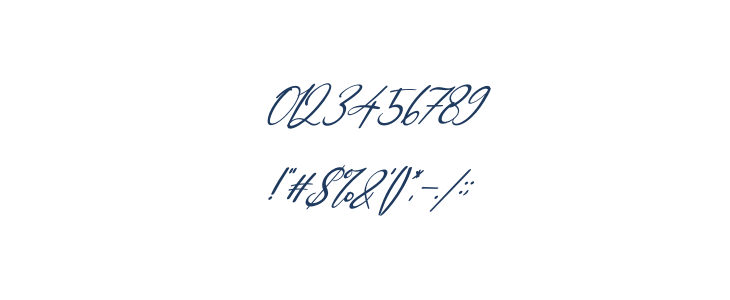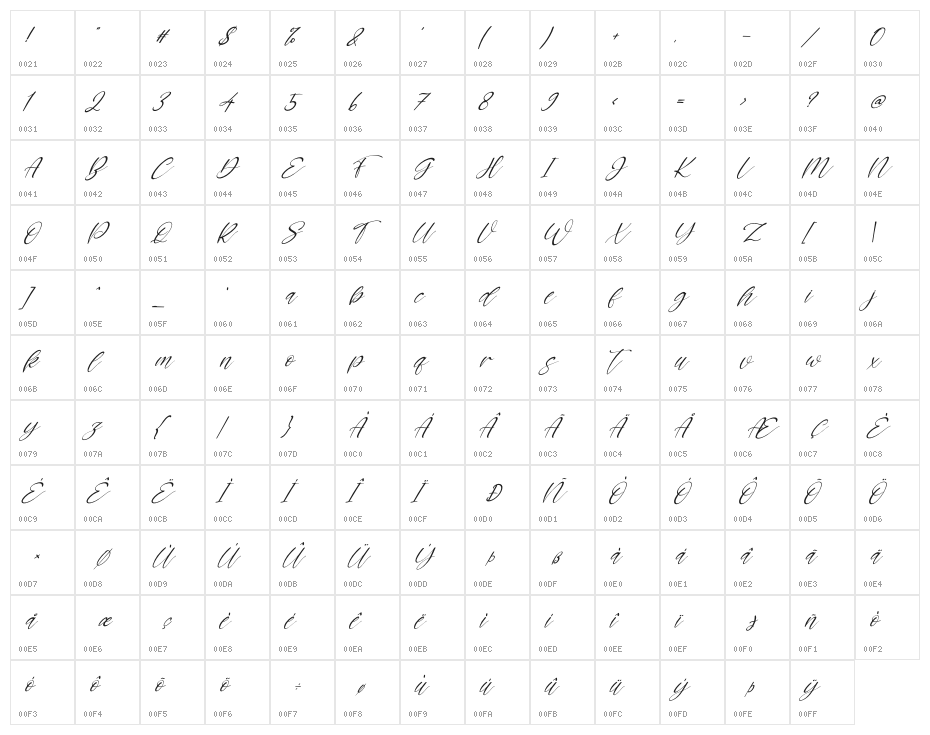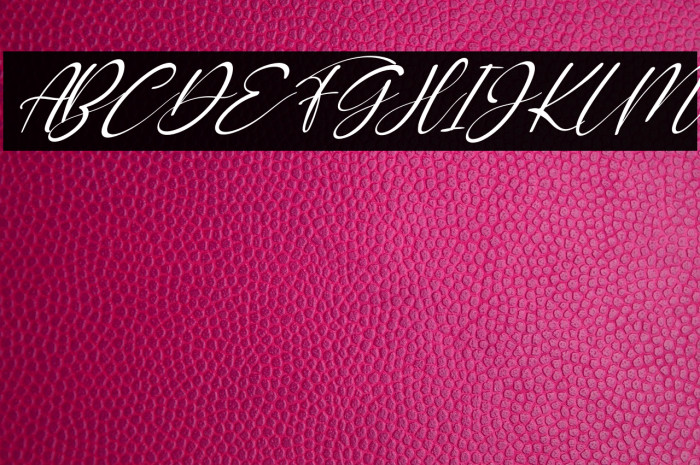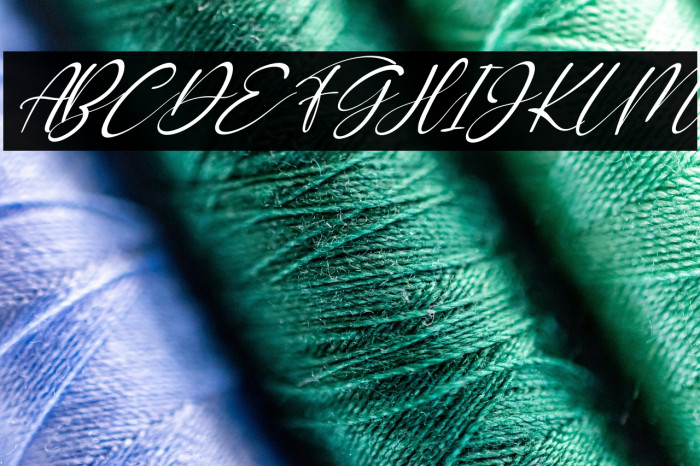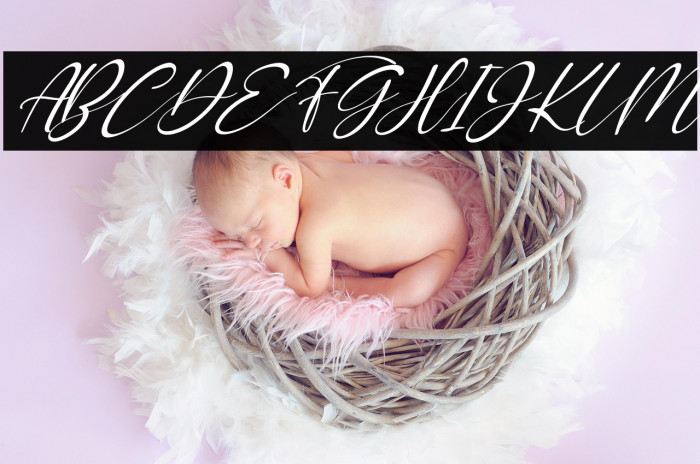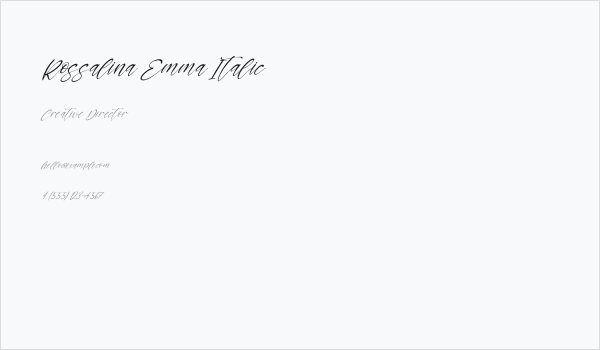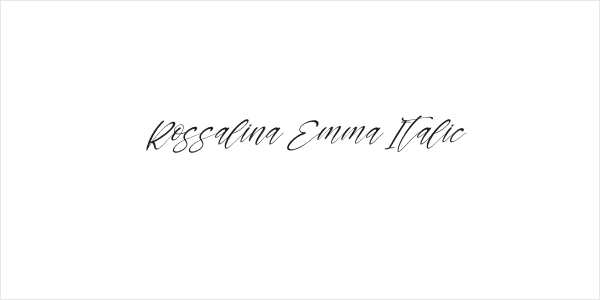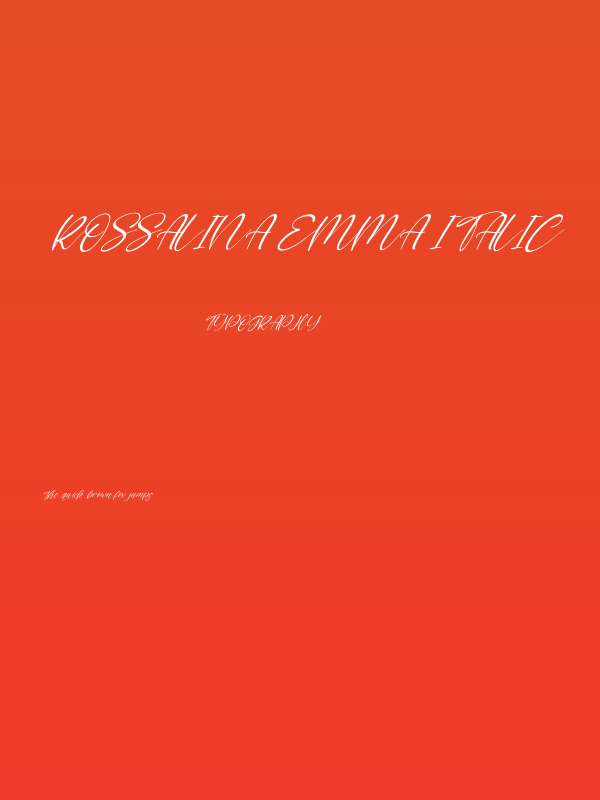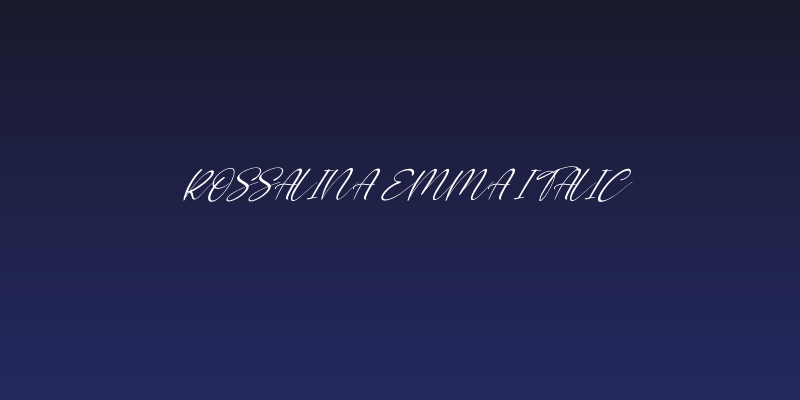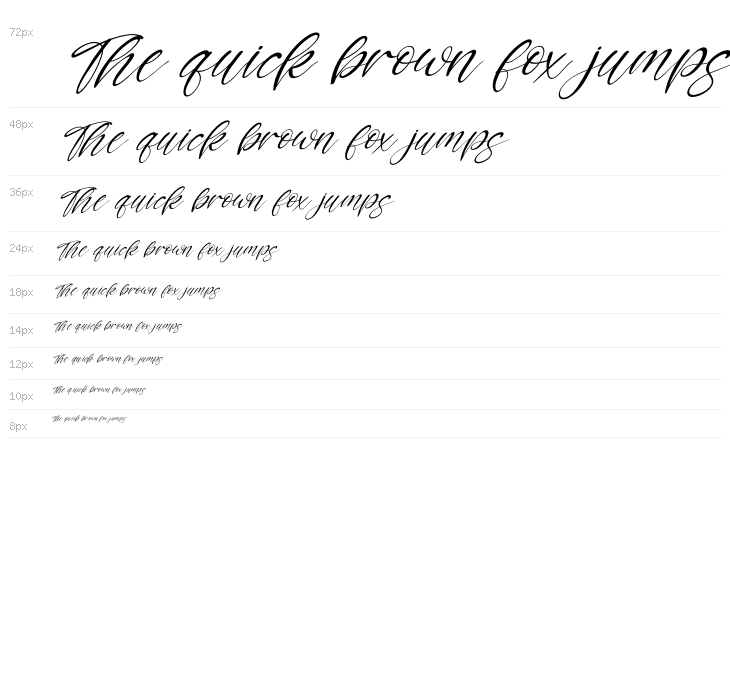
Rossalina Emma Italic Font
Rossalina Emma Italic Description
This elegant script font features a flowing, cursive style with a distinct italic slant, giving it a dynamic and sophisticated appearance. The characters are interconnected with smooth, sweeping strokes, creating a sense of fluidity and grace. The uppercase letters are bold and prominent, while the lowercase letters maintain a consistent flow, enhancing readability. The numbers and special characters are designed to complement the overall aesthetic, maintaining the same elegant curves and slanted style. This font exudes a sense of luxury and refinement, making it ideal for projects that require a touch of elegance.
| Overall Style | Elegant, Sophisticated |
| Proposed Projects | Ideal for wedding invitations, elegant branding, luxury product packaging, and sophisticated event posters. |